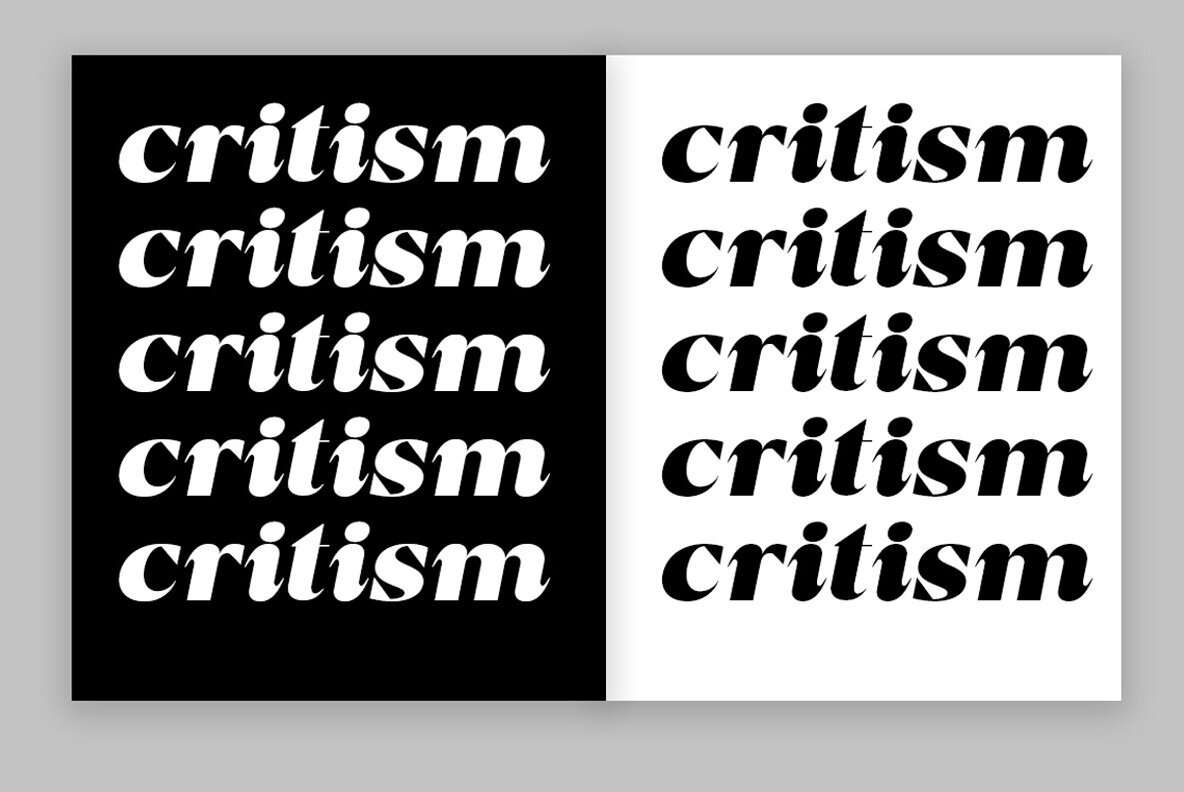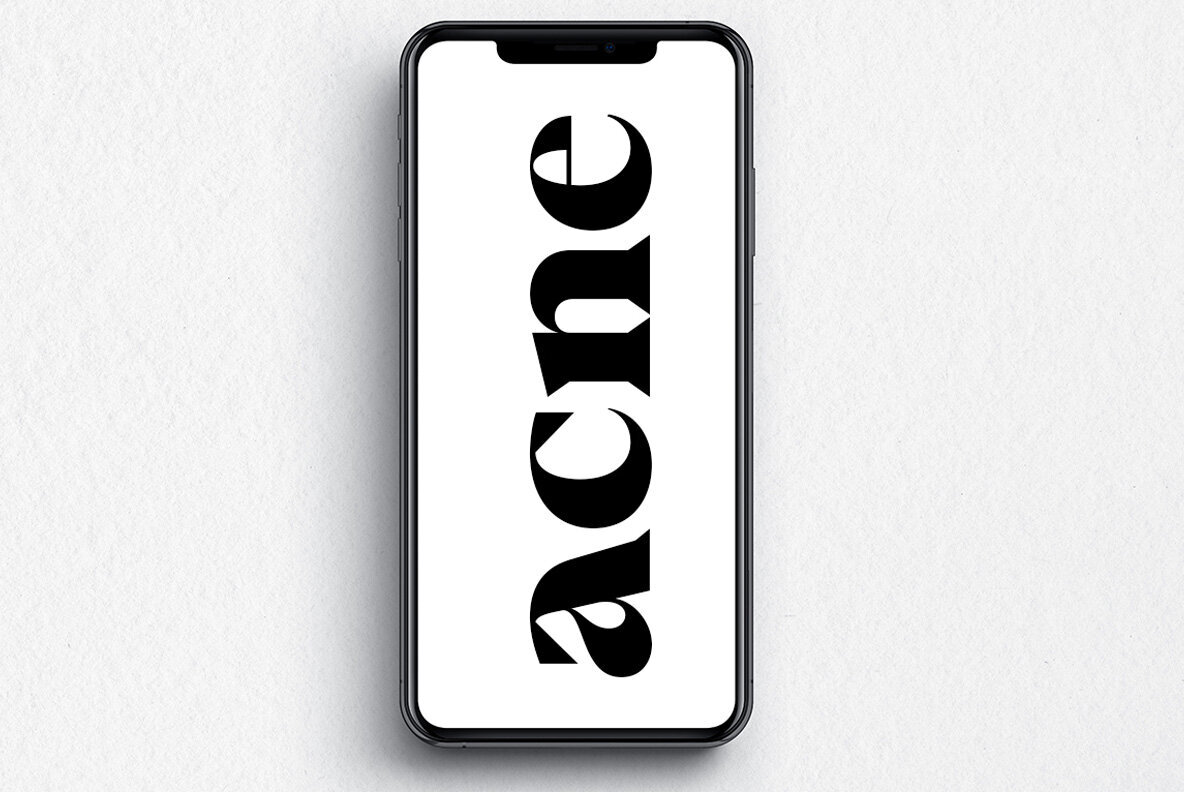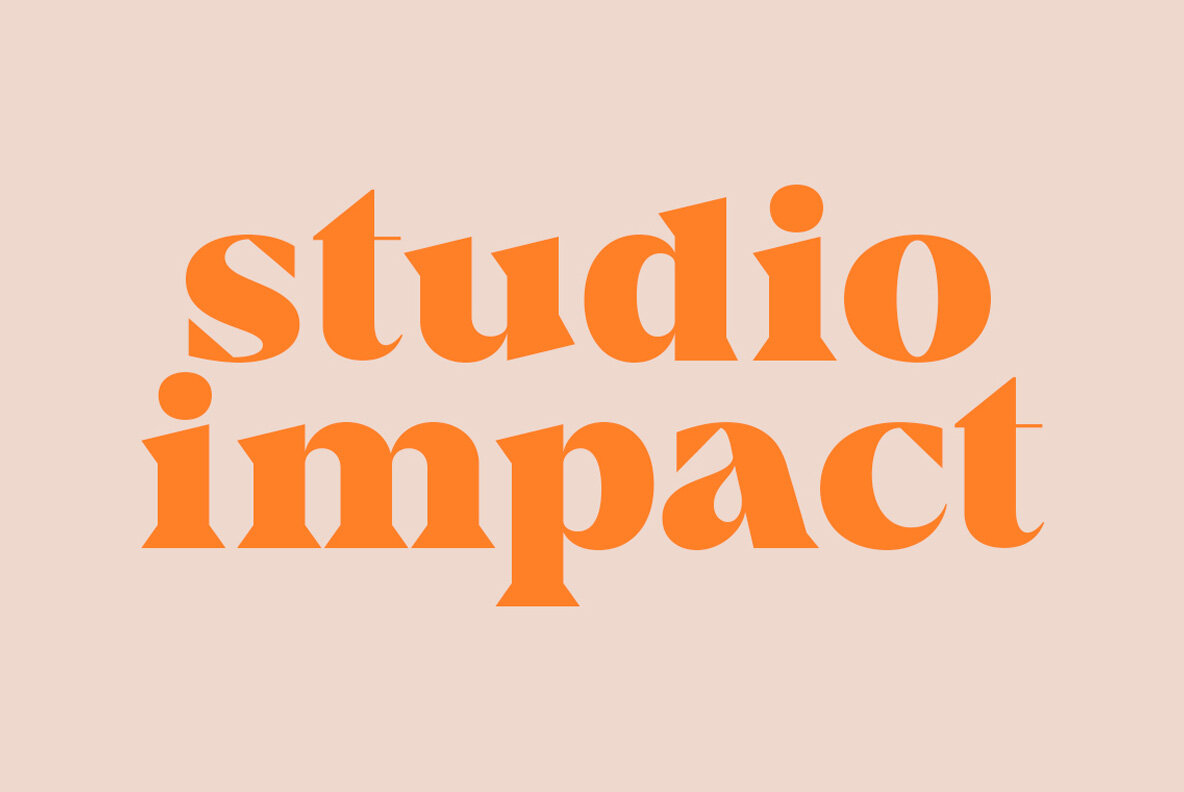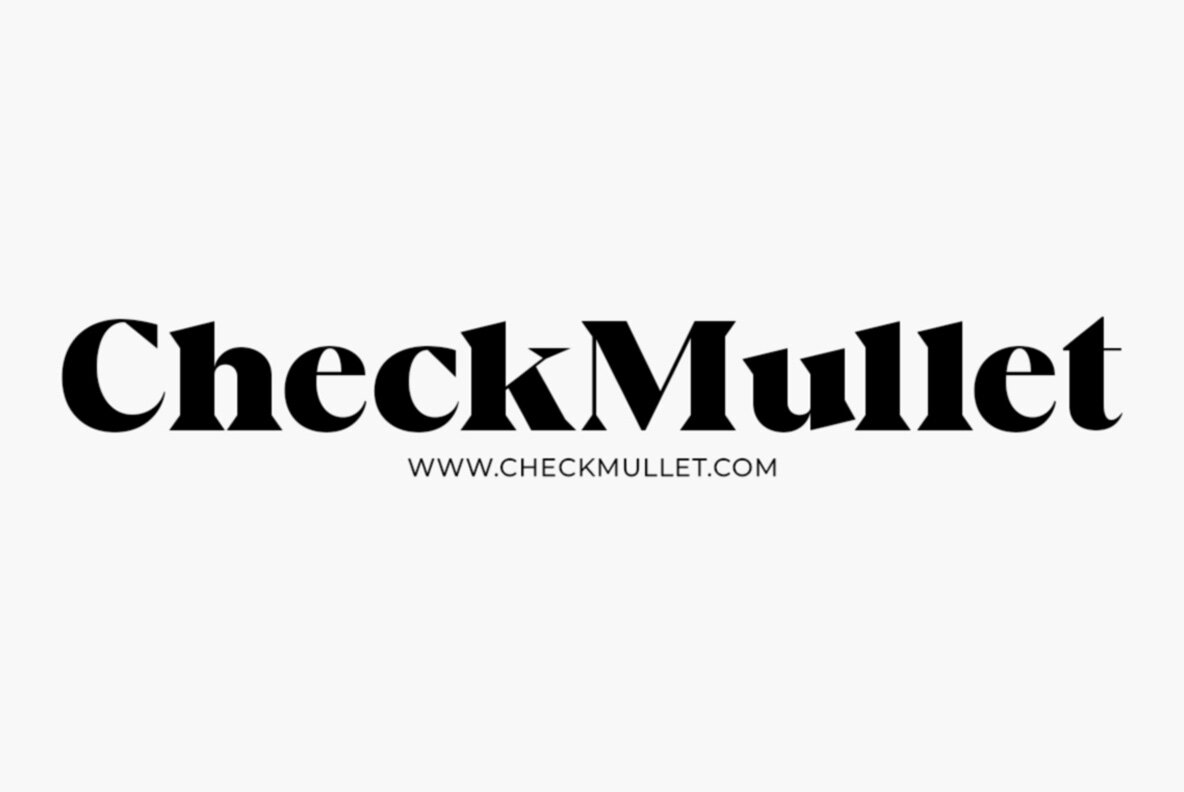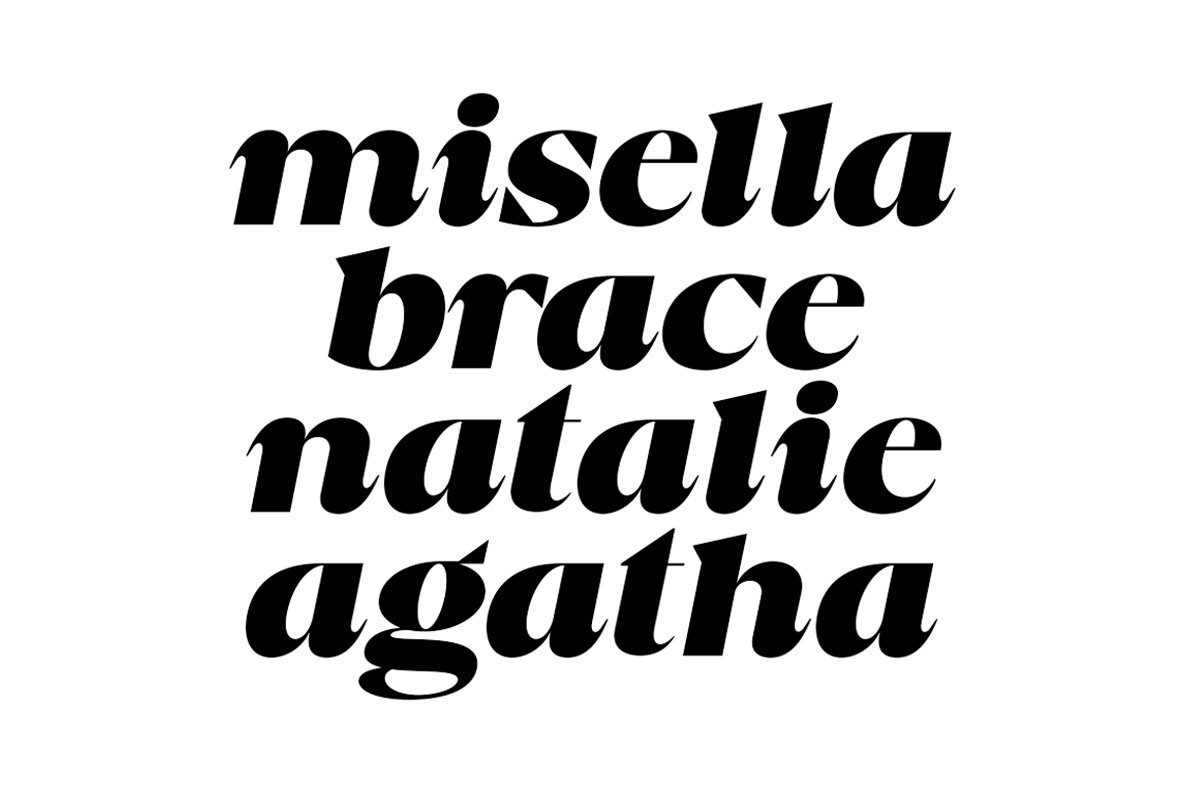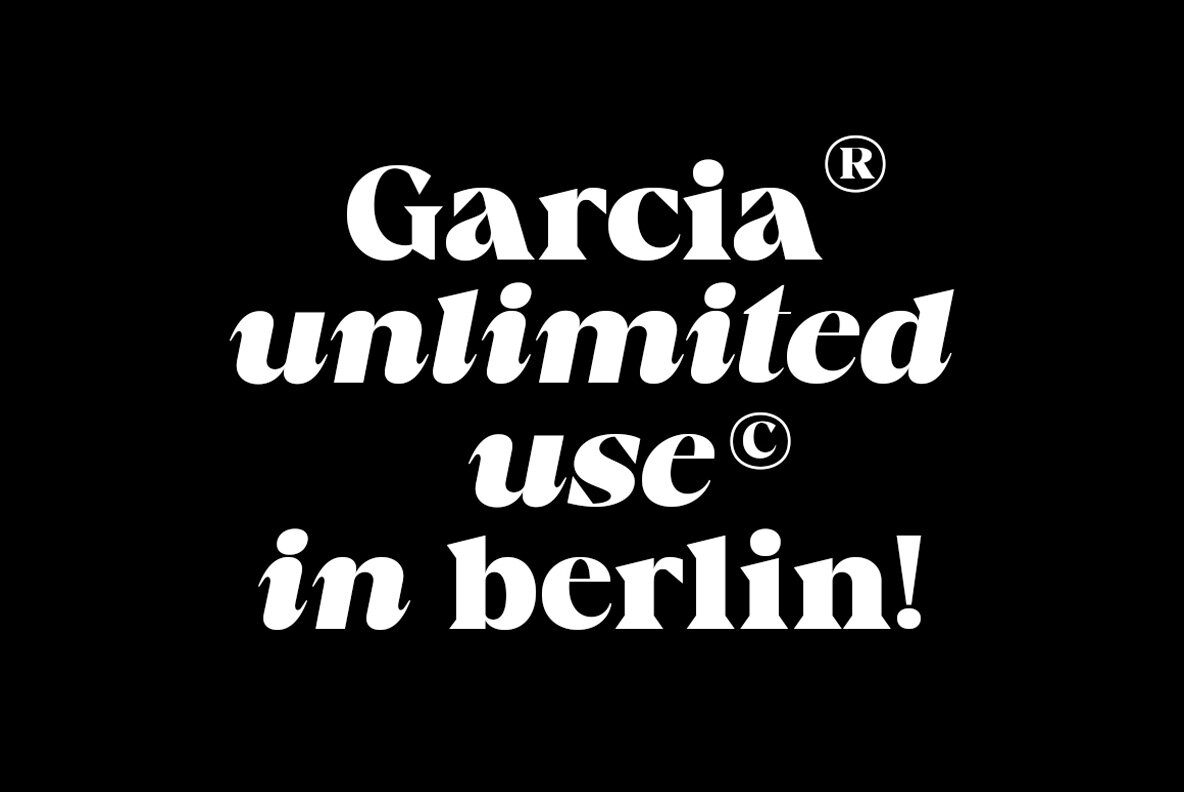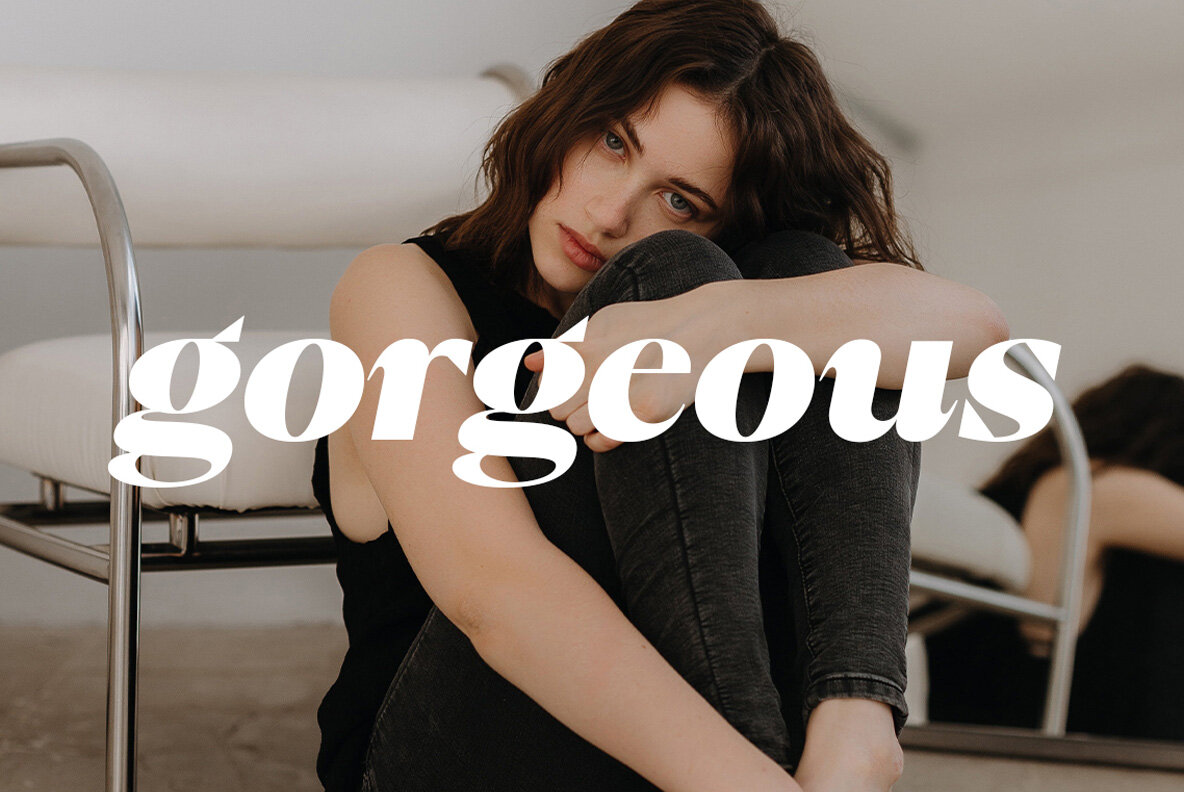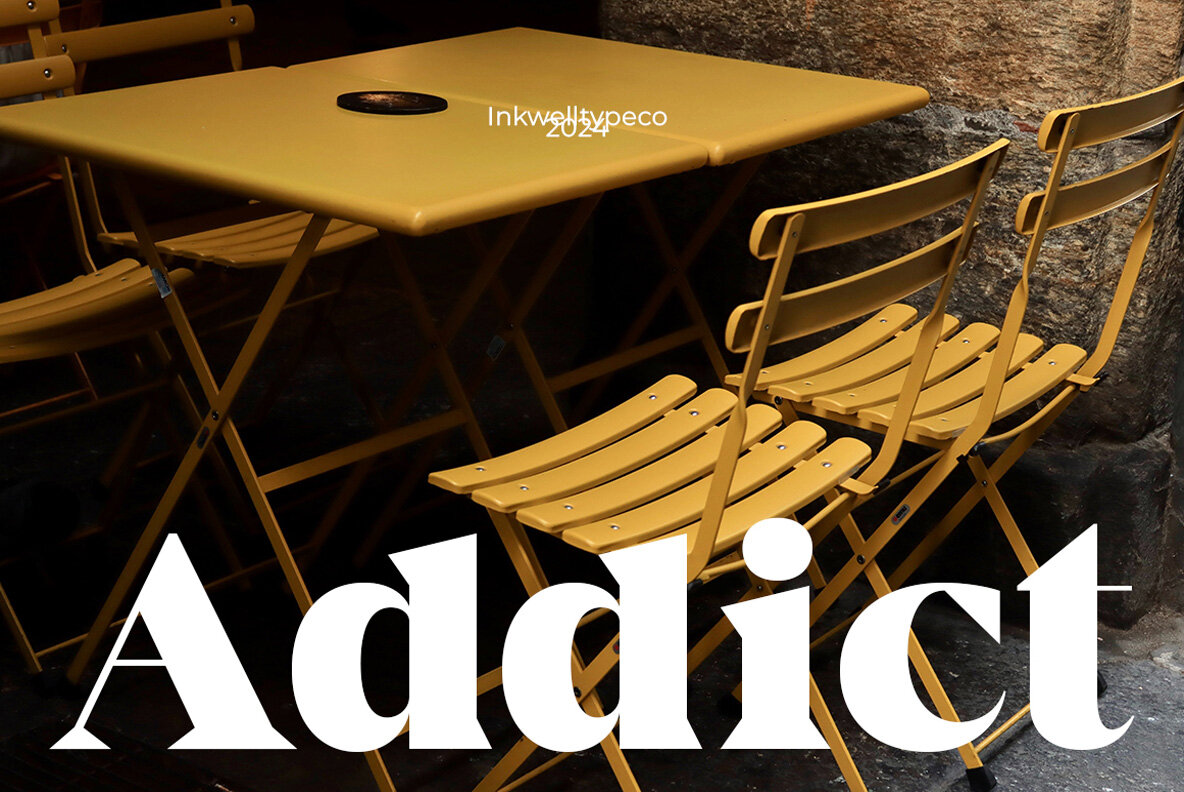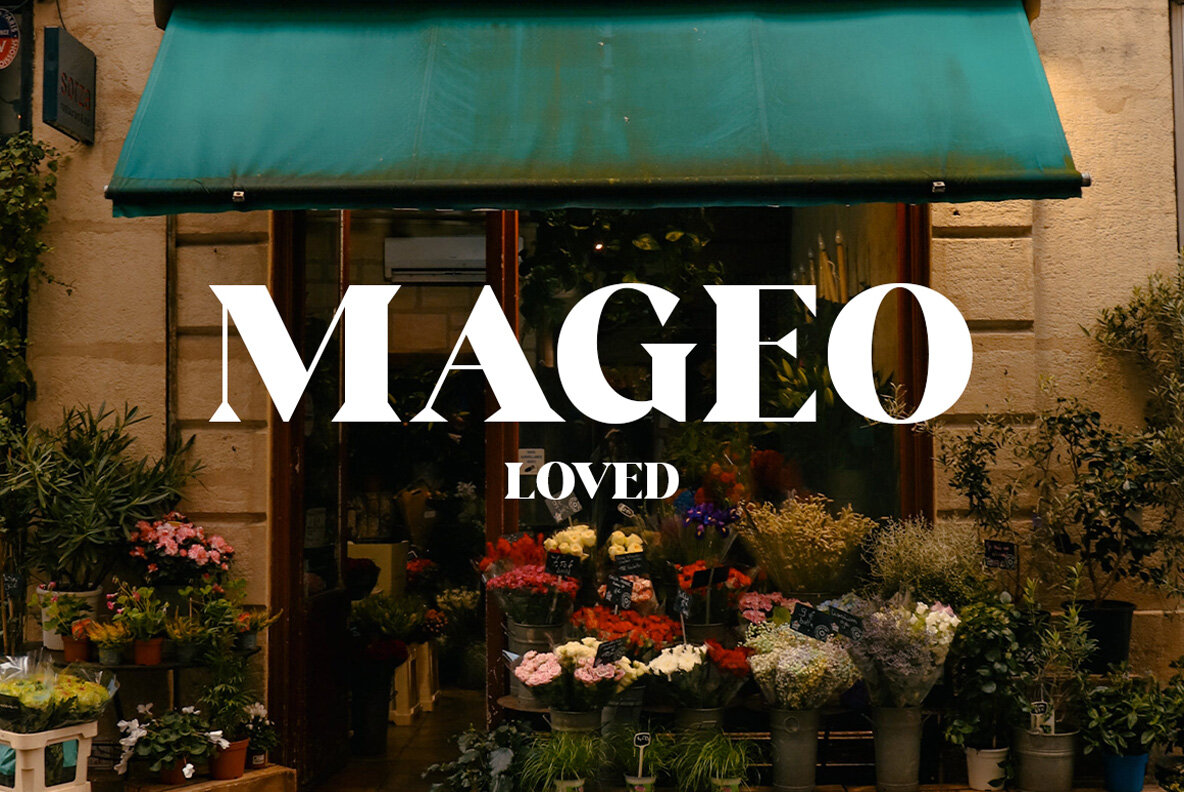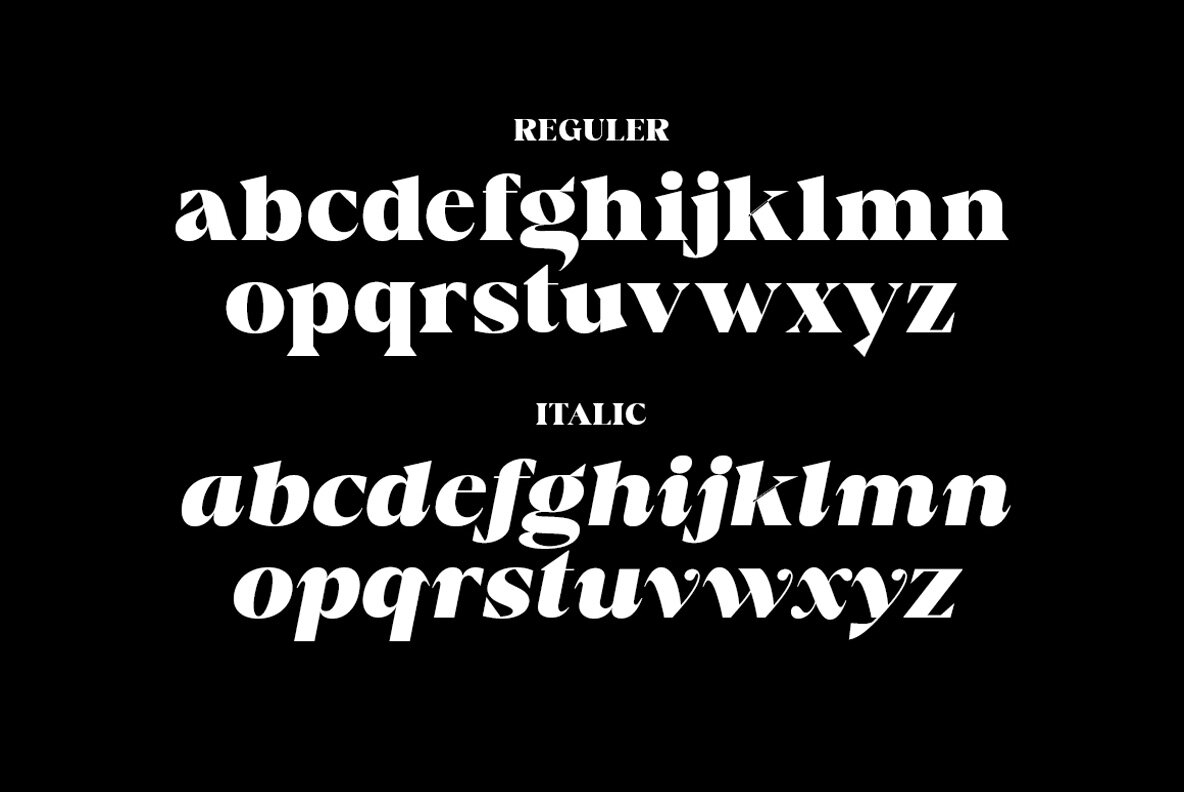
Gildan Font
Gildan serif A modern twist on timeless elegance. With sleek lines and balanced proportions, gildan brings sophistication to any design project. Perfect for both print and digital media, its versatility makes it a go-to choice for designers seeking a blend of classic beauty and contemporary flair."